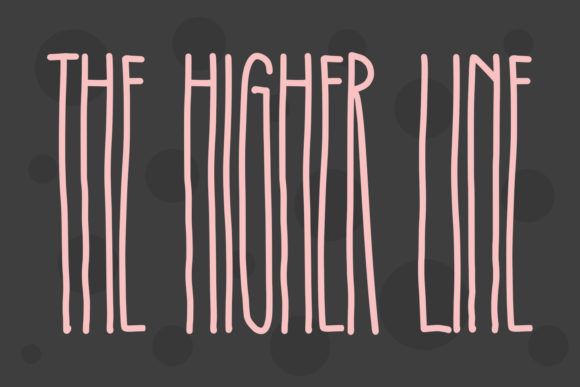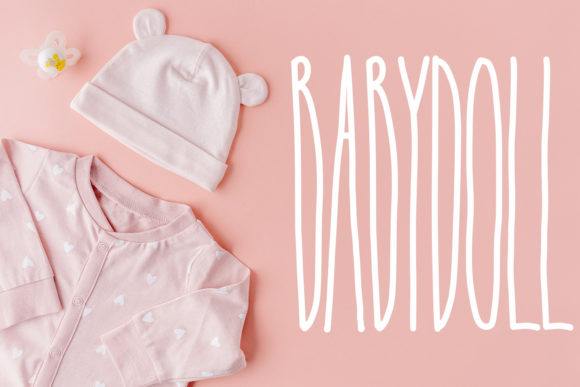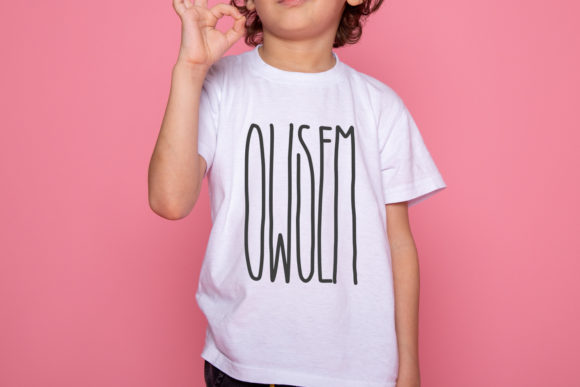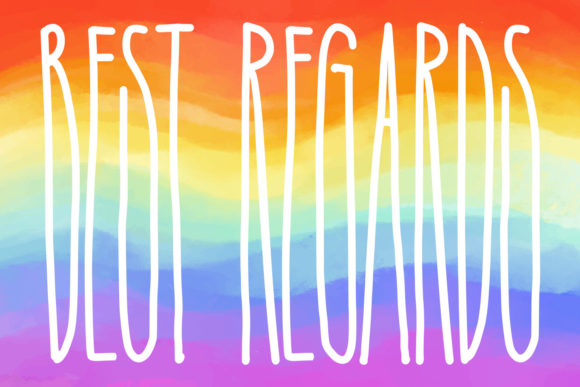
Introduction to Hot Lemonade Font
Hot Lemonade is a tall, thin lettered and cute sans serif font.
It is great for titling, logo, t-shirt designs, mugs, tote bag designs, cards, banners, social media, and anything related to craft projects .
Key Features of Hot Lemonade Font
Why Choose Hot Lemonade Font?